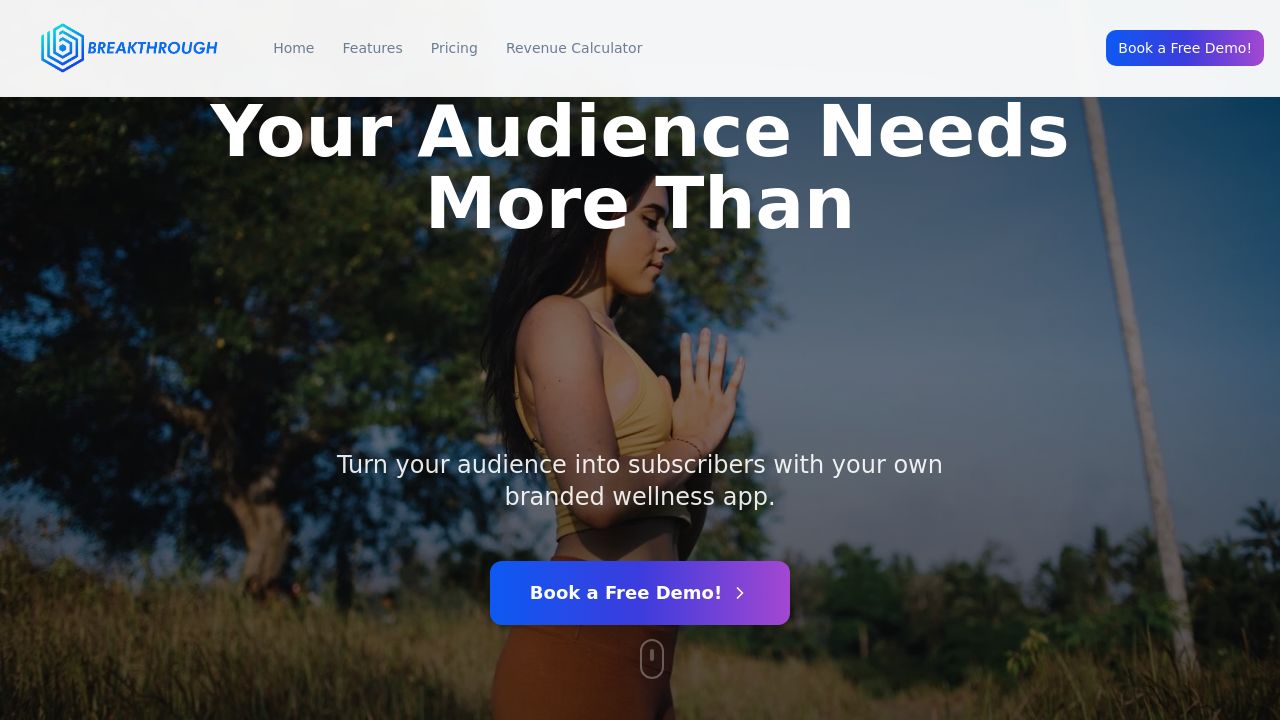
Breakthrough Apps, found at letsbreakthrough.co, employs a distinctive typographic palette that resonates with its wellness-focused audience. The choice of Helvetica and helvetica-neue in a consistent weight of 400 creates a clean and approachable aesthetic, making it easy for users to engage with their offerings. Complemented by Monaco and Georgia, the site conveys clarity and warmth, aligning perfectly with the ethos of yoga, fitness, and meditation creators who seek to build their branded apps.
The primary fonts used on letsbreakthrough.co are Helvetica (custom, weight 400), helvetica-neue (custom, weight 400), Monaco (system, weight 400), and Georgia (system, weight 400).
Letsbreakthrough.co's typography, featuring Helvetica and Georgia, offers a distinctive blend of modernity and readability, unlike some wellness sites that may use more decorative fonts. This choice enhances user experience and accessibility.
On letsbreakthrough.co, Helvetica and helvetica-neue are used in weight 400, while Monaco and Georgia also maintain a weight of 400. This consistent weight across fonts supports a harmonious visual flow.